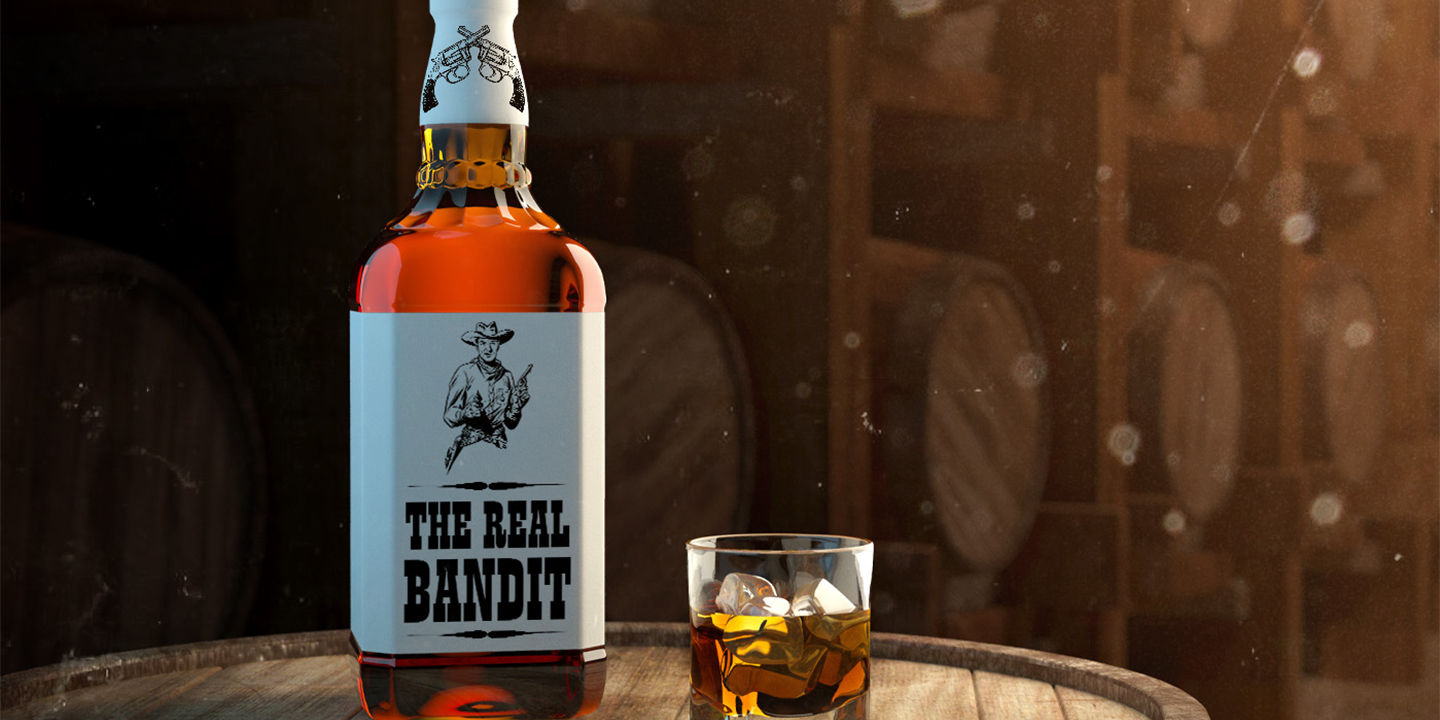
Playbill Font Free Download is a bold, decorative display typeface inspired by classic theater posters and vintage signage. Perfect for event promotions, posters, logos, headlines, and theatrical branding projects.
What makes Playbill Font so exciting is its dramatic, all-caps letterforms with strong vertical lines and vintage charm. It instantly evokes the energy of the stage, making your design stand out with a nostalgic yet powerful presence.
The Playbill Font family typically includes the classic Regular style, focusing on its iconic theatrical character without unnecessary embellishments.
Whether you’re designing a playbill, a concert poster, or eye-catching branding for entertainment venues, Playbill Font Free Download brings boldness and flair. You can try it for free, but commercial use requires a license. Let Playbill add a touch of vintage drama to your projects!